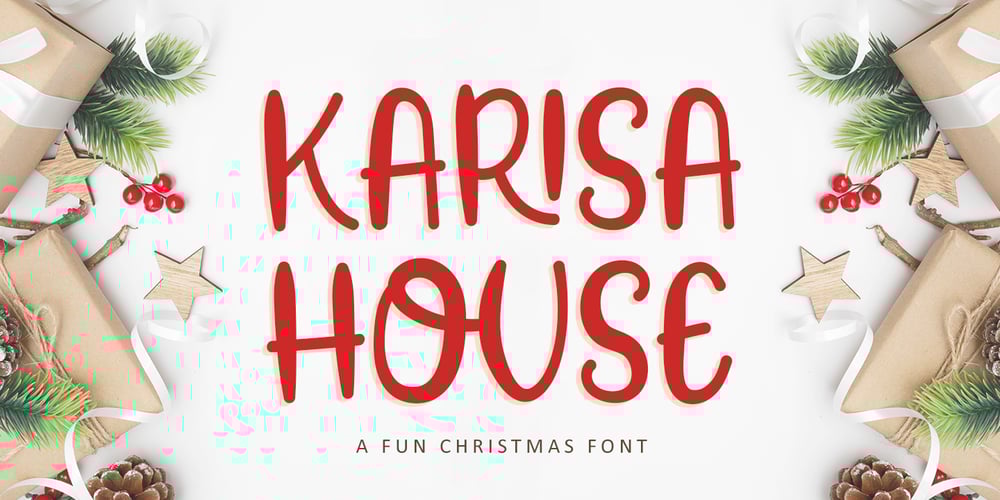
Karisa House
Karisa House font
Karisa House Font Family was designed by Bayu Suwirya and published by Illushvara. Karisa House contains 1 styles and family package options. Karisa House is a fun display font featuring the perfect amount of trendiness. Whether you’re using it for crafting, digital designing, presentations or greeting cards making, it’s perfect!